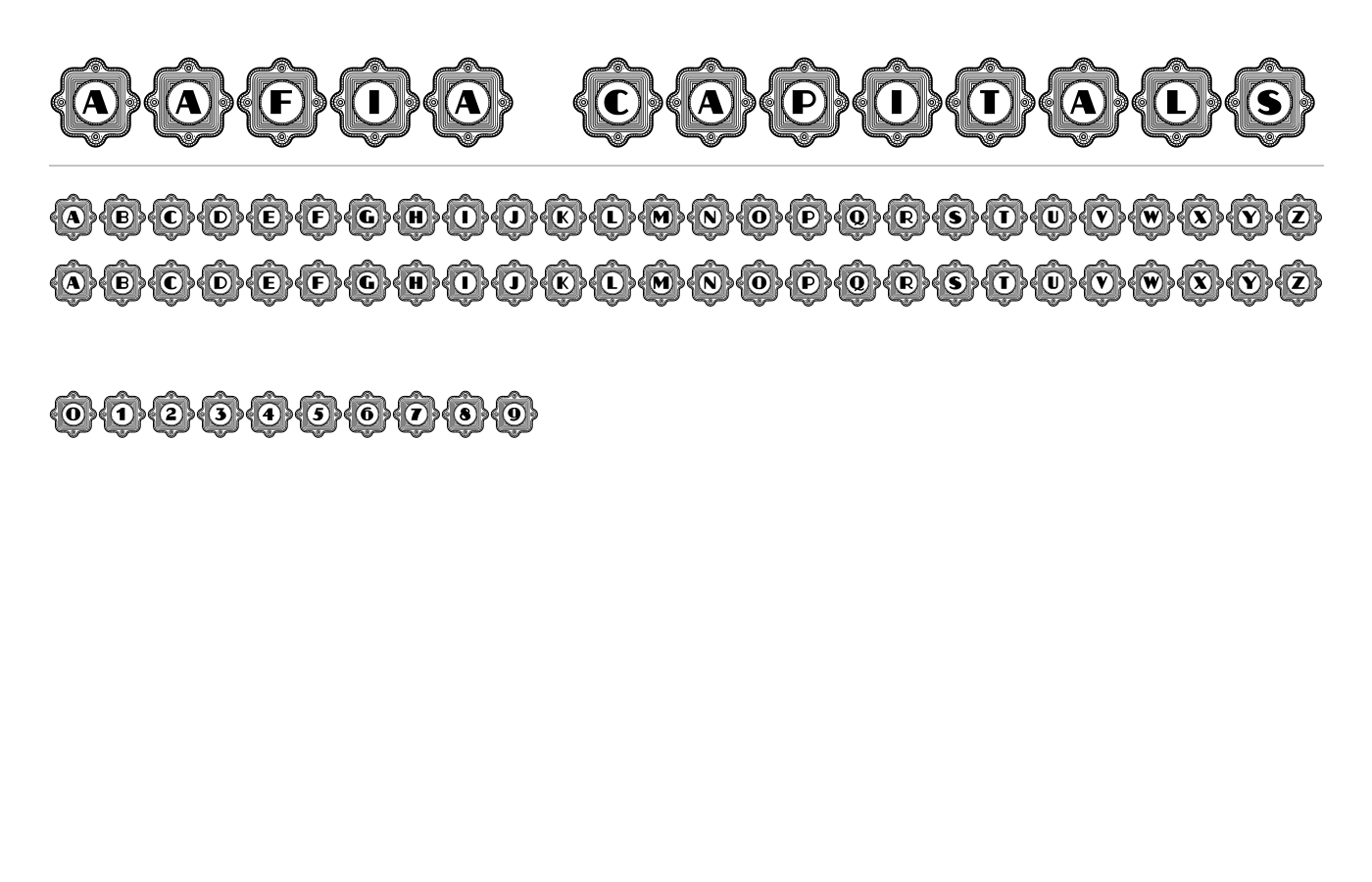
Aafia Capitals is a decorative display font featuring bold, geometric uppercase letters enclosed within intricate, ornate frames. This font combines a sense of vintage charm with a playful yet sophisticated style, making it ideal for eye-catching headlines, logo designs, and packaging that seek to convey uniqueness and elegance. Its distinct framed letterforms lend a strong visual identity well-suited for creative branding and decorative titles.
Aafia Capitals Font
About Aafia Capitals Font
| Font family | Aafia Capitals Font |